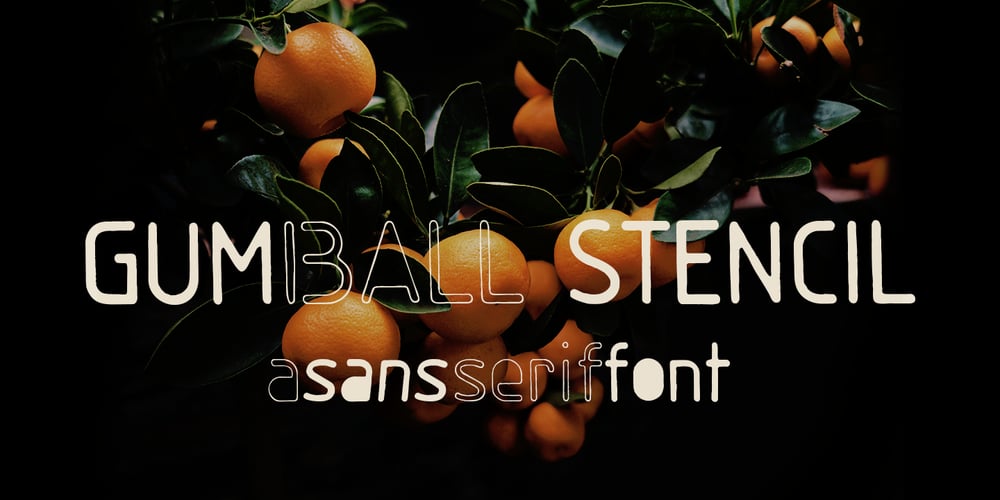
Gumball Stencil Font Family was designed by Ana Parracho and published by Ana’s Fonts. Gumball Stencil contains 4 styles and family package options. Gumball is a hand drawn font using an old letter ruler. It is a versatile sans serif font, perfect to make a statement in postcards, posters, titles, branding and packaging, etc.The Gumball font family includes four fonts: Gumball, Gumball Italic, Gumball Blackout, Gumball Blackout Italic